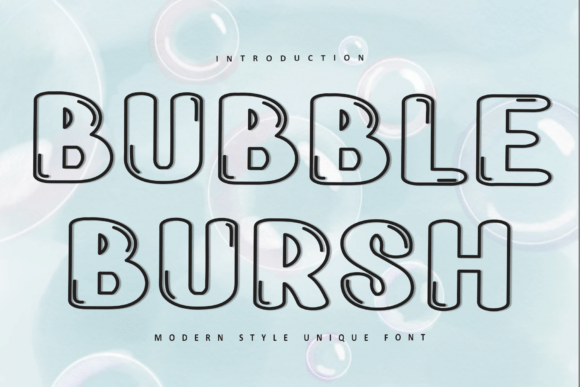
Getting into the Holiday Spirit with the Bubble Bursh Font
As the snowflakes start to fall and the twinkling lights begin to adorn our homes, many of us can’t help but feel a sense of excitement and joy. It’s the perfect time to break out the festive decorations, bake some holiday treats, and get creative with our designs.
One of the most magical ways to add a touch of whimsy to your holiday projects is with the Bubble Bursh Font. This enchanting typeface is specifically designed to capture the spirit of the season, with its playful decorations and nostalgic flair. Whether you’re creating greeting cards, gift tags, or holiday-themed projects, the Bubble Bursh Font is the perfect addition to your design toolkit.
With its PUA encoded features, you’ll have easy access to all the amazing glyphs and ligatures that make this font so special. So why settle for a dull, ordinary design when you can let the magic of the Bubble Bursh Font shine through?
Bubble Bursh Font Key Features
- Unique Hand-Drawn Design: Features a playful, hand-drawn style with organic textures and irregular shapes, perfect for adding a personal touch to designs.
Bubble Bursh Font Review
I recently had the chance to work with the Bubble Bursh Font, and I have to say it’s a unique and quirky addition to any design project. ✨ One of the things I love about this font is its playful, hand-drawn feel. It adds a touch of whimsy and personality to any text, making it perfect for branding or packaging design.
Another advantage of the Bubble Bursh Font is its versatility. ✨ It works well in both digital and print applications, and its bold lines and rounded shapes make it easy to read at various sizes. The font also includes a range of weights and styles, giving designers a lot of flexibility when it comes to creating custom typography.
While the Bubble Bursh Font has a lot to offer, there are a few limitations to consider. ⚠️ For one thing, the font can be a bit over-the-top in certain situations. Its playful, hand-drawn feel may not be suitable for more formal or professional applications.
Additionally, the font may not be the best choice for text-heavy designs. ⚠️ The rounded shapes and bold lines can make it difficult to read large blocks of text, and the font may become overwhelming.
Overall, I think the Bubble Bursh Font is a great addition to any designer’s toolkit. While it may not be suitable for every project, it’s perfect for adding a touch of whimsy and personality to your designs.
- Unique, hand-drawn feel
- Playful and versatile
- Bold lines and rounded shapes
- Range of weights and styles
- Suitable for digital and print applications
Bubble Bursh Font Practical Application Guide
Bubble Bursh Font is ideal for creating playful and whimsical designs, such as:
- Party invitations
- Food packaging designs
For best results, use Bubble Bursh Font in conjunction with bold, bright colors and playful graphics.